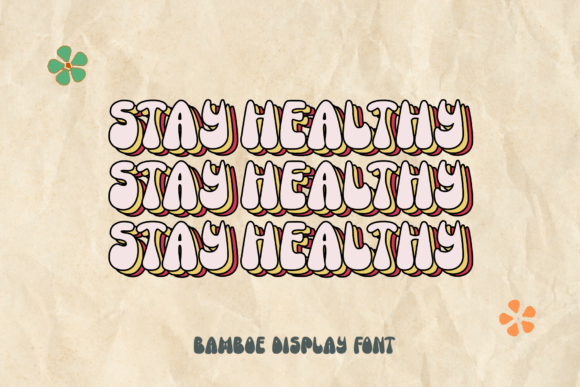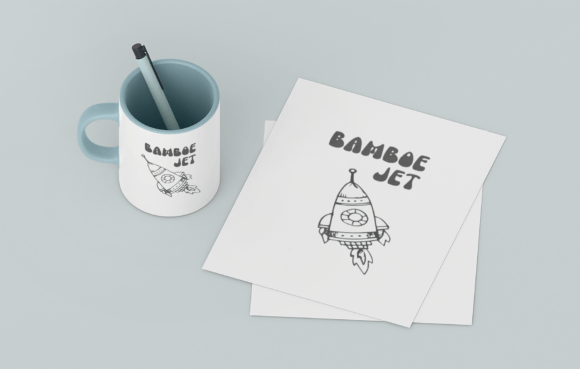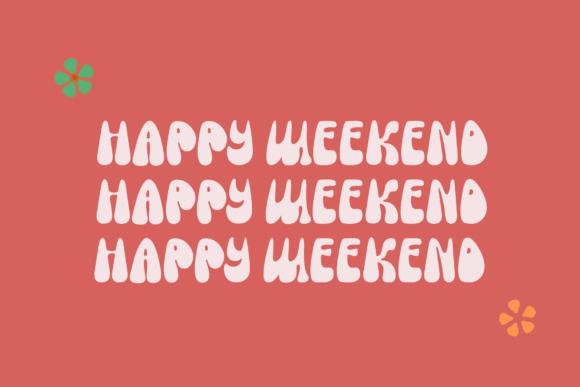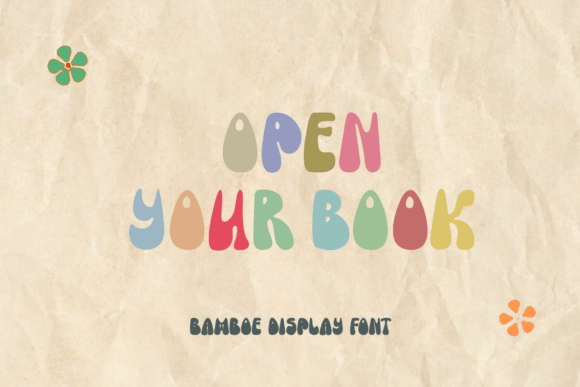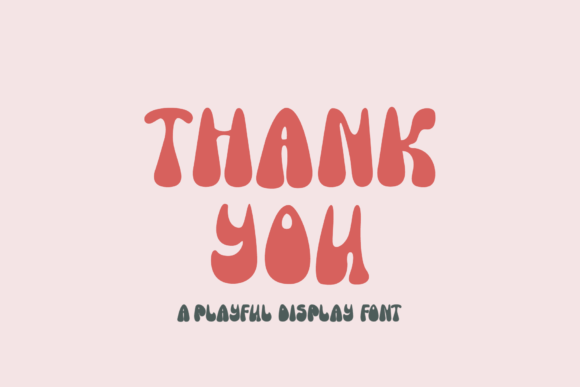
Bamboe Display Font: Adding a Playful Touch to Your Designs
Bamboe Display is a playful and bouncy display font that fits all your design needs! It adds a fun and exciting feel to any project, making it perfect for designers and crafters looking to add a touch of whimsy to their work. In this article, we’ll dive into the world of Bamboe Display Font, exploring its features, benefits, and uses.
What is Bamboe Display Font?
Bamboe Display Font is a unique and eye-catching typeface designed to bring a sense of playfulness and energy to your designs. Its bouncy and irregular shape gives it a hand-drawn feel, making it perfect for projects that require a personal touch. Whether you’re working on a logo, poster, or social media graphic, Bamboe Display Font is sure to make your design stand out.
Key Features of Bamboe Display Font
- Playful and Bouncy Design: Bamboe Display Font features a unique and irregular shape that gives it a playful and bouncy feel.
- Hand-Drawn Look: The font’s hand-drawn look adds a personal touch to your designs, making them more relatable and engaging.
- Versatile: Bamboe Display Font is perfect for a wide range of design projects, from logos and posters to social media graphics and more.
- Easily Readable: Despite its playful design, Bamboe Display Font is easily readable, making it perfect for headlines and titles.
Benefits of Using Bamboe Display Font
So, why should you use Bamboe Display Font in your designs? Here are just a few benefits:
- Adds a Fun and Exciting Feel: Bamboe Display Font adds a fun and exciting feel to any project, making it perfect for designs that require a playful touch.
- Stand Out from the Crowd: With its unique and eye-catching design, Bamboe Display Font helps your design stand out from the crowd.
- Perfect for Branding: Bamboe Display Font is perfect for branding projects, such as logos and packaging, where a playful and memorable design is essential.
Uses of Bamboe Display Font
Bamboe Display Font is perfect for a wide range of design projects, including:
- Logos and Branding: Use Bamboe Display Font to create a playful and memorable logo that reflects your brand’s personality.
- Posters and Flyers: Add a fun and exciting feel to your posters and flyers with Bamboe Display Font.
- Social Media Graphics: Use Bamboe Display Font to create eye-catching social media graphics that grab attention.
- Packaging: Add a playful touch to your packaging with Bamboe Display Font.
Tips for Using Bamboe Display Font
Here are a few tips for using Bamboe Display Font effectively:
- Use it for Headlines and Titles: Bamboe Display Font is perfect for headlines and titles, where its playful design can shine.
- Experiment with Colors: Try out different colors and color combinations to add an extra layer of fun to your design.
- Pair it with Other Fonts: Pair Bamboe Display Font with other fonts to create a unique and interesting contrast.
Bamboe Display Font is a playful and bouncy display font that’s perfect for designers and crafters looking to add a fun and exciting feel to their designs. With its unique and eye-catching design, Bamboe Display Font is sure to make your design stand out from the crowd. Whether you’re working on a logo, poster, or social media graphic, Bamboe Display Font is a great choice.